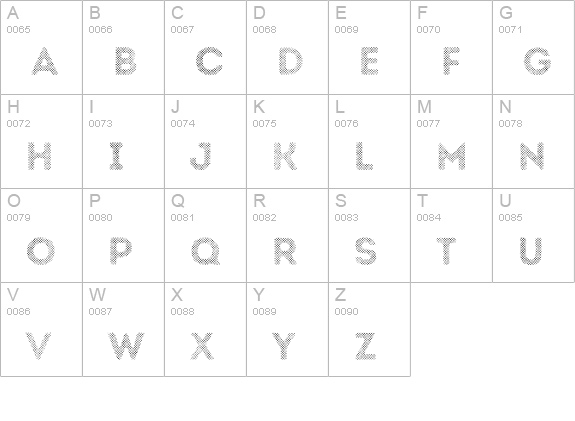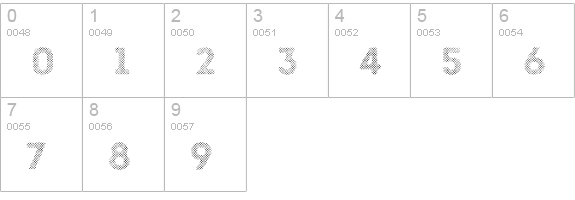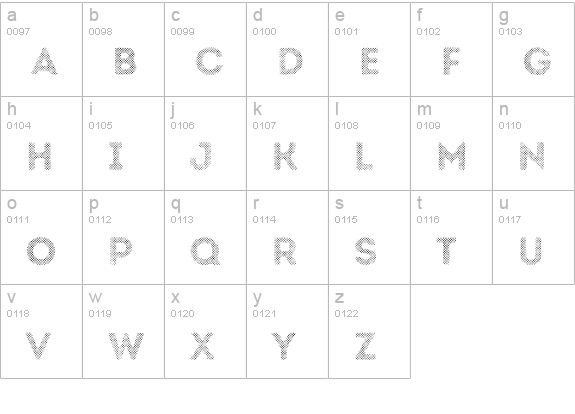
Intro Rust H1 Fill Font Details
Intro Rust H1 Fill is a striking and bold display font that is sure to make a statement in any design project. With its unique and eye-catching design, this font is perfect for headlines, posters, and branding. The strong and edgy style of Intro Rust H1 Fill will grab the attention of your audience and leave a lasting impression. Best of all, this font is available for free download at FontsMarket.com, making it easily accessible for all your creative needs. Add a touch of modernity and creativity to your designs with Intro Rust H1 Fill today!